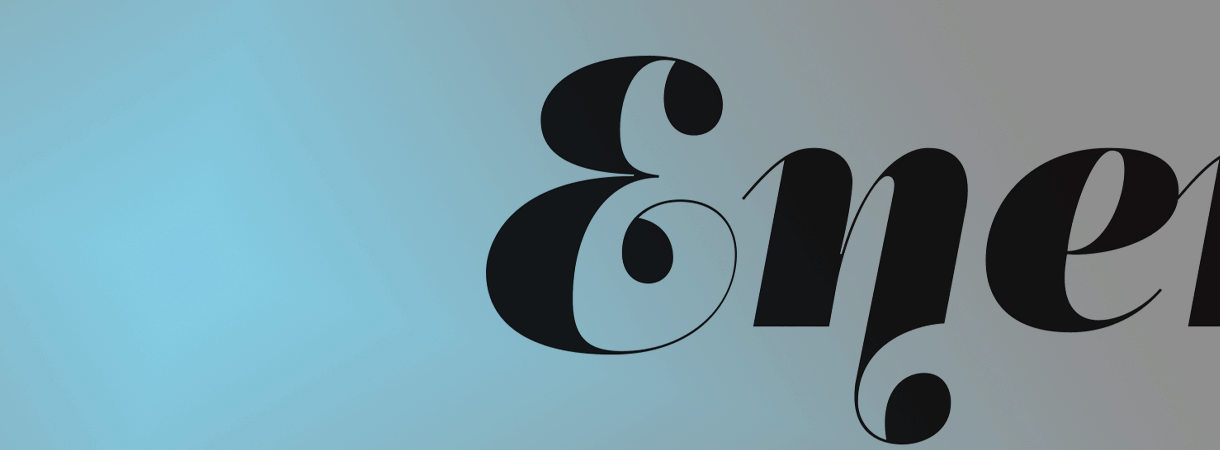
Why it is important to associate letterforms with emotions
Designing typefaces has become in recent years a sophisticated process. All major media brands invest heavily on corporate branding and design as a means of differentiating themselves from competitors. A typeface is equally important as it greatly influences the unconscious perception of the anticipated target audience. The visual personality of the typeface and its association to certain emotions and shapes is critical when it comes to attracting the right audience. A rightly tailored typeface, which reflects the essence of the brand, creates a consistent visual identity which strengthens the product and projects an attractive and easily perceived personality.
Along these lines, I was called some time ago to design a typeface series for an international fashion magazine for women. First published in 2010, the type system Regal was later revamped and redesigned for commercial use. Ever since, Regal has won 9 major international awards including the prestigious RedDot Grand Prix 2012.
The Brief
According to the brief, this typeface had to be elegant, luxurious, sexy, vibrant, reflect the female sensitivity and take into consideration a modern woman who is more proud, more connected, more spontaneous, open-minded and eager to try a whole host of new products and services.
The Solution
Targeting this consumption-wise and well-educated woman, required a typeface that is not strictly based on classic forms, but incorporates several distinct elements that express a modern woman’s personality and the products she consumes. Eventually, Ι set out to design a whole series of 5 related superfamilies which not only emphasize femininity but also reflect both the romantic as well as the dynamic side of the female personality.
In order to associate the desired emotions and psyche with the characteristics of the typeface, the following design decisions were implemented:
• elegant curvy details were introduced in order to establish a link to the female physique (fig. 1);
• teardrop terminals which reflect a woman’s sensitivity (fig. 2);
• pronounced quirks on upper and lower arms for her eyelashes (fig. 3);
• high-contrast, sharp corners at thinning terminals for her high heels (fig. 4);
• alternate glyphs for the woman who prefers to express her individuality -rather than slavishly follow trends- by using various accessories which can dramatically change her appearance (fig. 5);
• elegant endings and long curves to reflect her predisposition to dream (fig. 6);
• bell-shaped serifs with an inward rather than outward direction reminiscent of streamlined seventies fashion which is currently making a comeback (fig.7).
Figure 1. elegant curvy details establish a link to the female physique
Figure 2. teardrop terminals reflect a woman’s sensitivity
Figure 3. pronounced quirks on upper and lower arms for her eyelashes
Figure 4. high-contrast, sharp corners at thinning terminals for her high heels
Figure 5. alternate glyphs for the woman who prefers to express her individuality with various accessories
Figure 6. elegant endings and long curves to reflect her predisposition to dream
Figure 7. bell-shaped serifs with an inward direction reminiscent of seventies fashion
Figure 8. Sample specimen of Regal Pro
Conclusion
Other than the fact that it helps you read, typography is a form of art for some, a craft for others, but definitely a tool which you can use to make a product look better, useful, sexier, trustworthy. Typography targets your subconscious perception, works in the background but affects the foreground, the world in front of you.